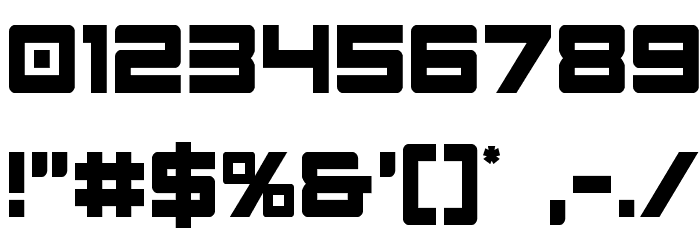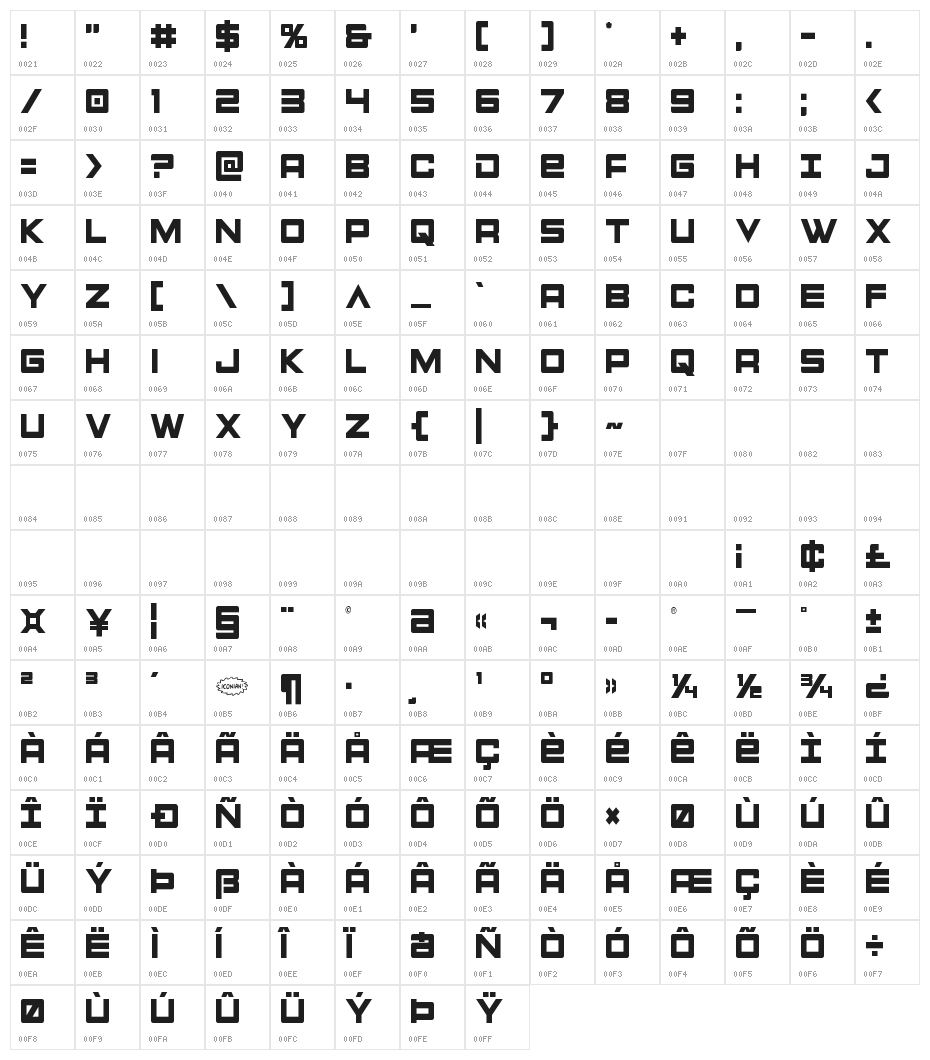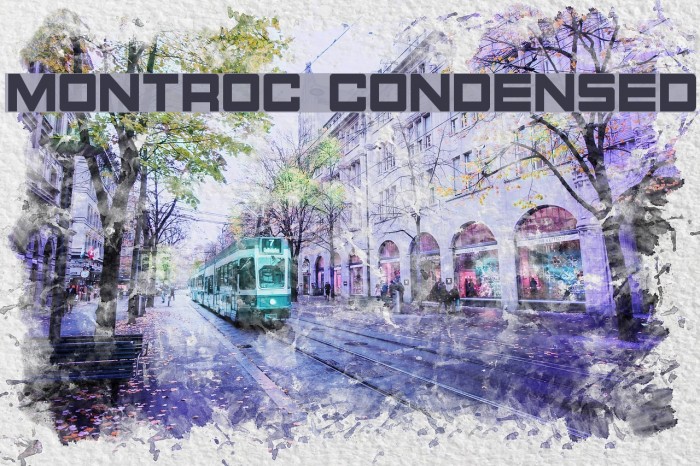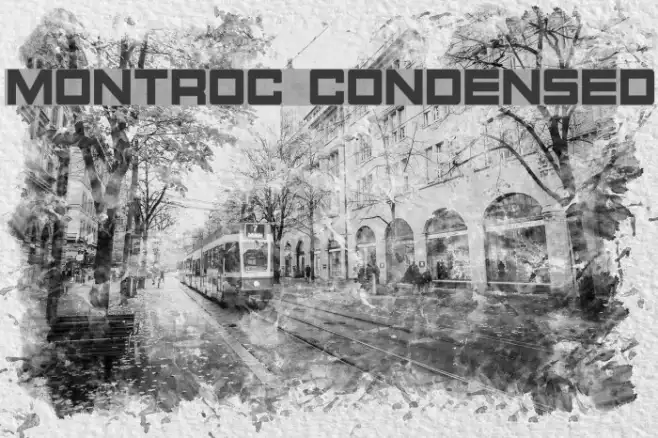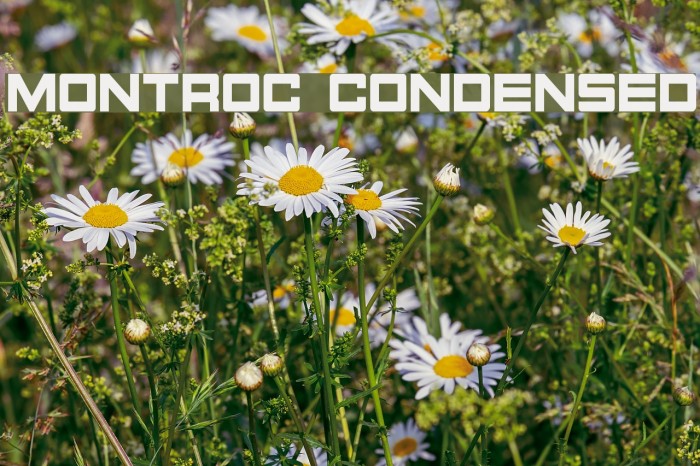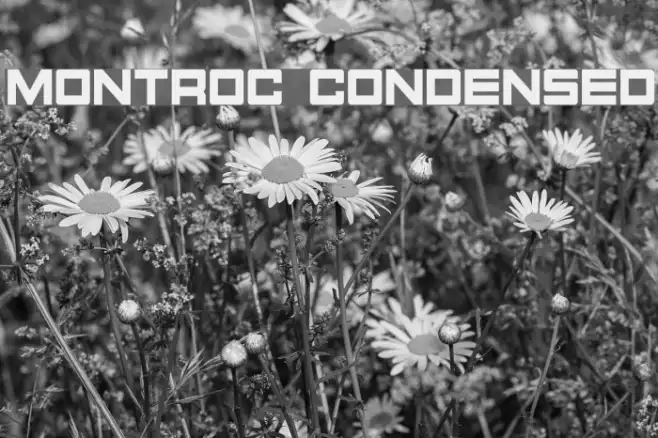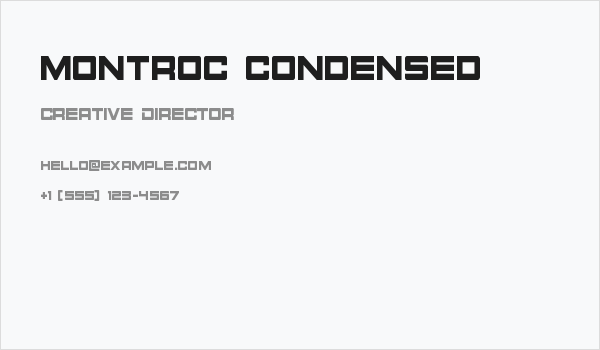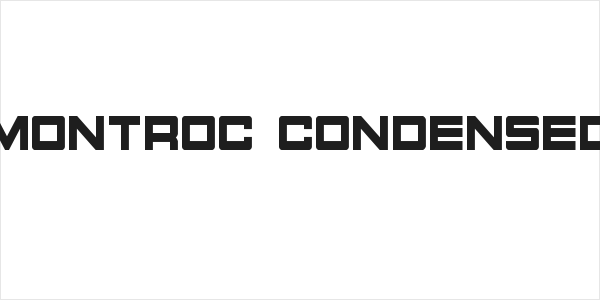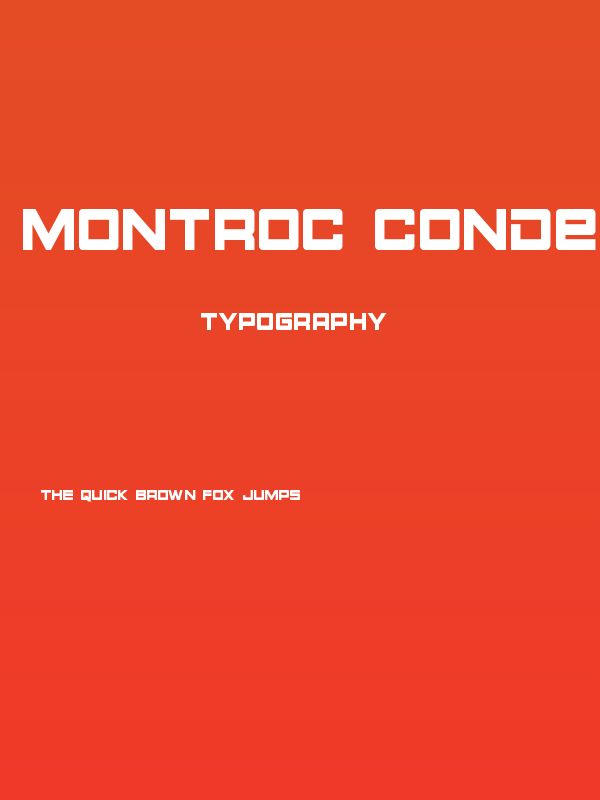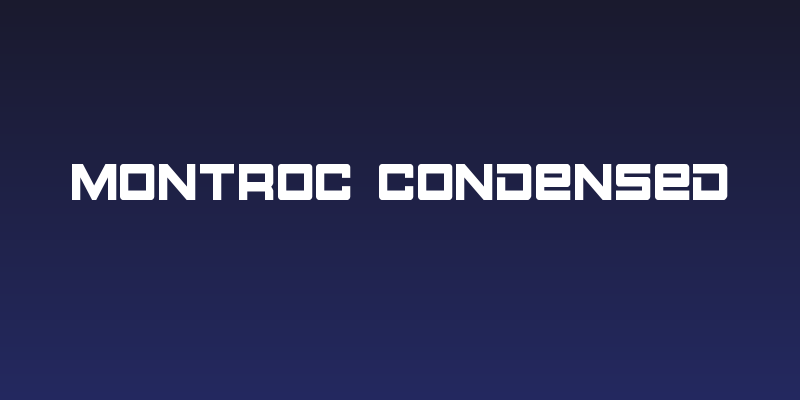
Montroc Condensed Font
Montroc Condensed Description
This font features a bold, geometric design with a strong presence. Its condensed form allows for efficient use of space, making it ideal for impactful headlines and titles. The characters are uniformly styled with sharp, angular edges and consistent stroke widths, giving it a modern and futuristic appearance. The uppercase letters are particularly striking, with a uniform height that enhances readability and visual appeal. The numerals and special characters maintain the same boldness and geometric style, ensuring consistency across all text elements.
| Proposed Projects | This font is perfect for projects requiring a strong visual impact, such as posters, branding, and advertising. Its modern style suits tech-related designs and futuristic themes. |